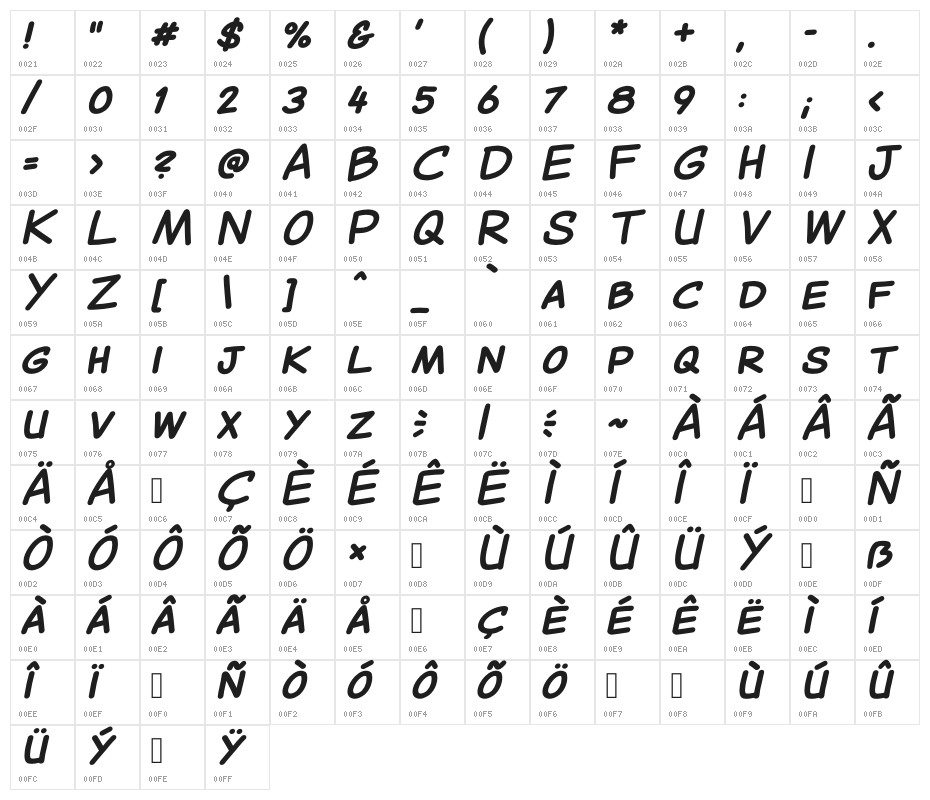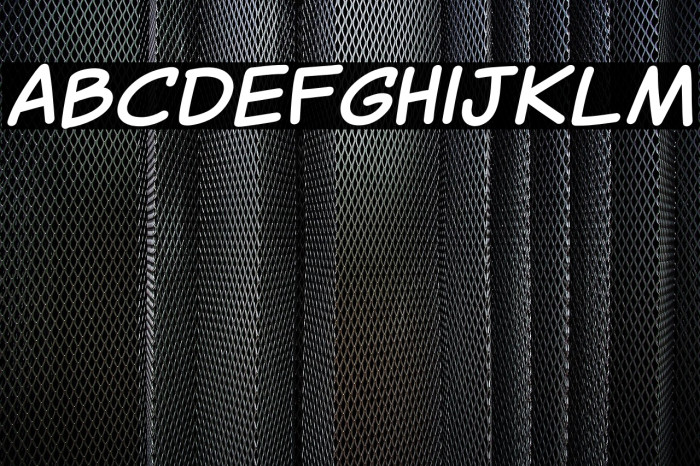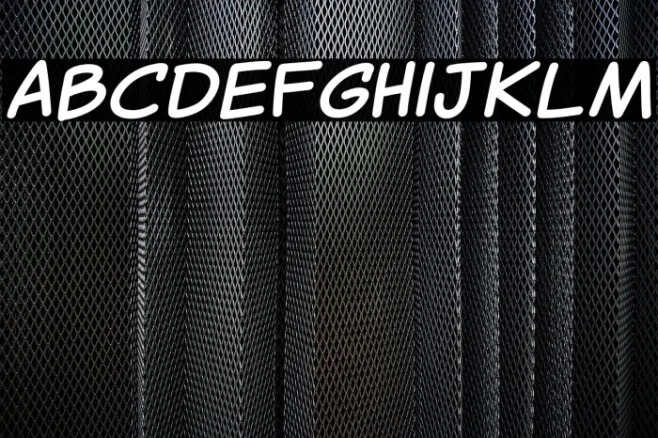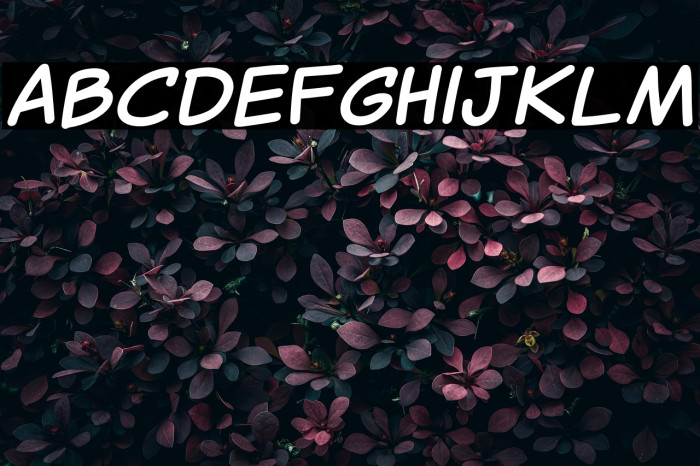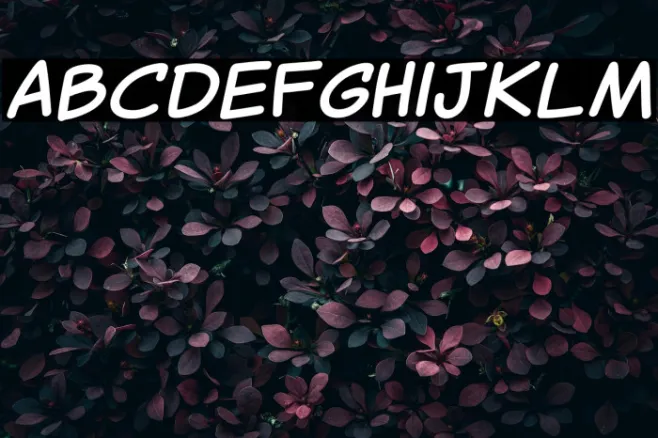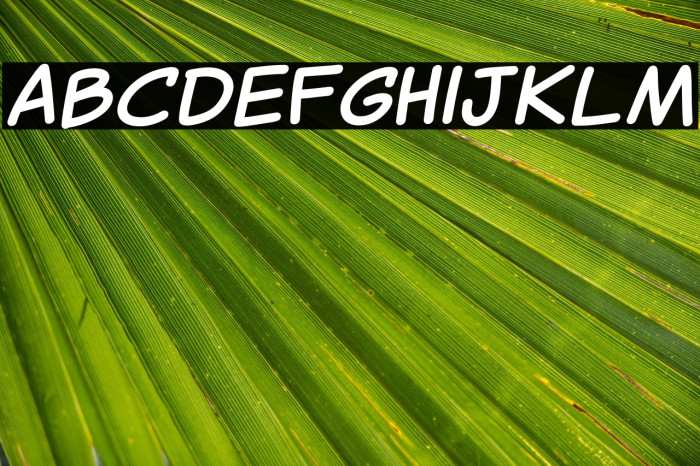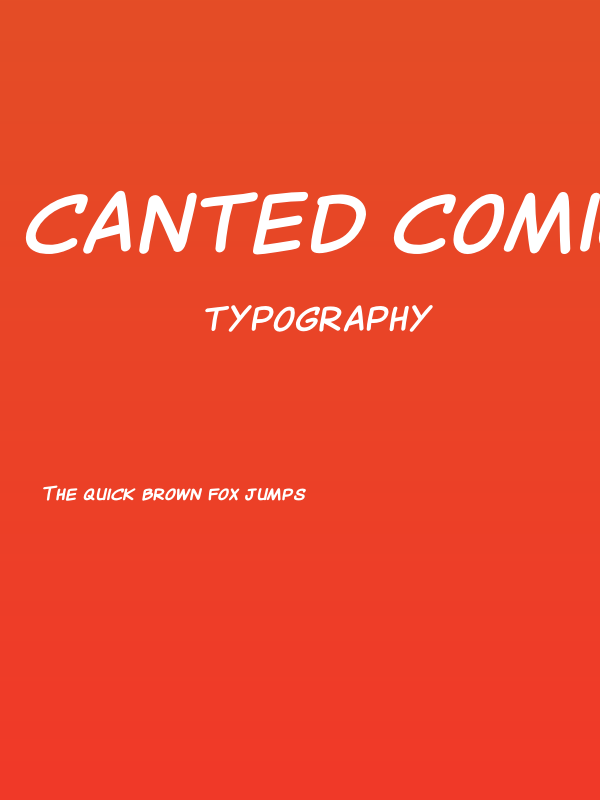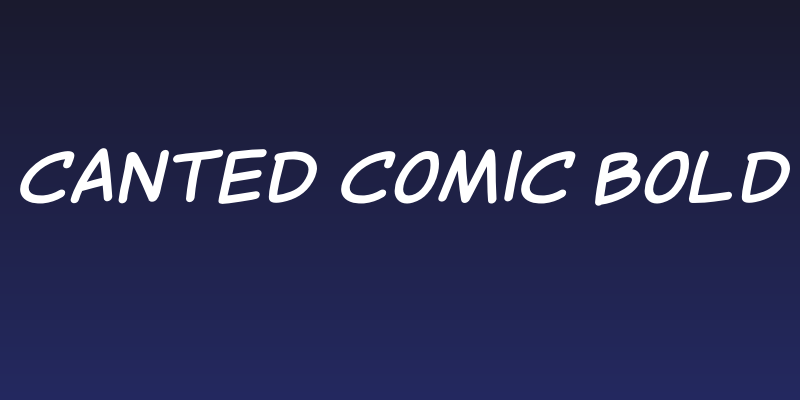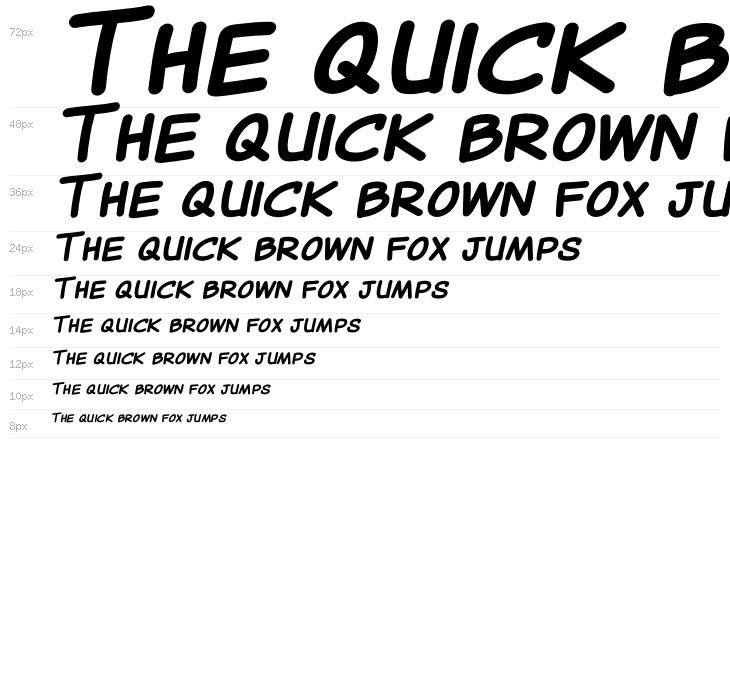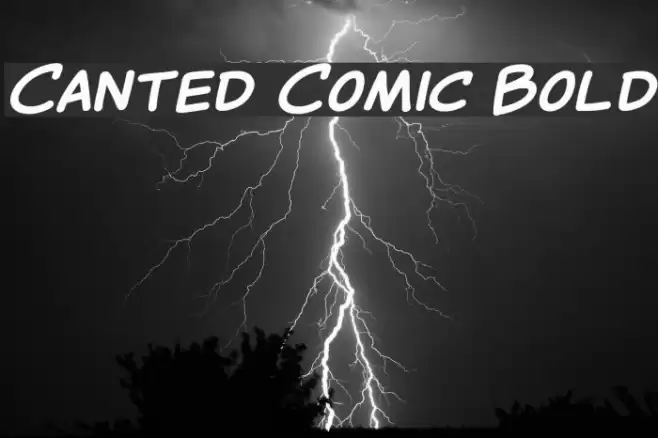
Canted Comic Bold Font
Canted Comic Bold Description
This font features a playful and bold style, reminiscent of comic book lettering. The characters are slightly slanted, adding a sense of movement and energy. The strokes are thick and rounded, giving it a friendly and approachable appearance. The uppercase and lowercase letters maintain consistent proportions, ensuring readability. Numbers and special characters are designed to match the overall aesthetic, making it suitable for informal and fun projects.
| Proposed Projects | Ideal for comic books, children's books, playful branding, and casual posters. |